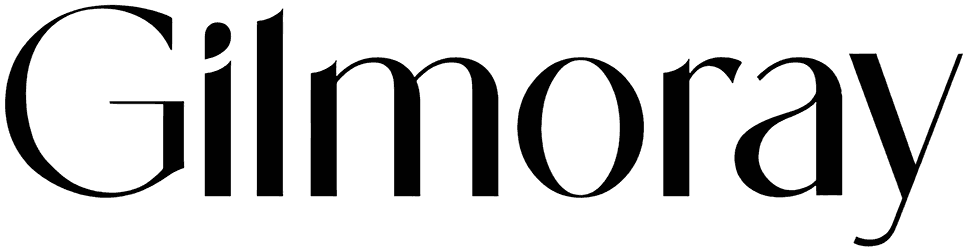
Gilmoray Font
Distract the audience from everything else around them and compel them to focus on your words with the charming style of Gilmoray. We have so many luxury fonts to offer you on Resource Boy, but you’re going to have a hard time finding something that tops this one.
Boasting endless elegance, this logo font impresses the audience with its sophisticated style. So even if you don’t see it yet, you’ll need Gilmoray for your restaurant signs, diet consultation logo, etc.